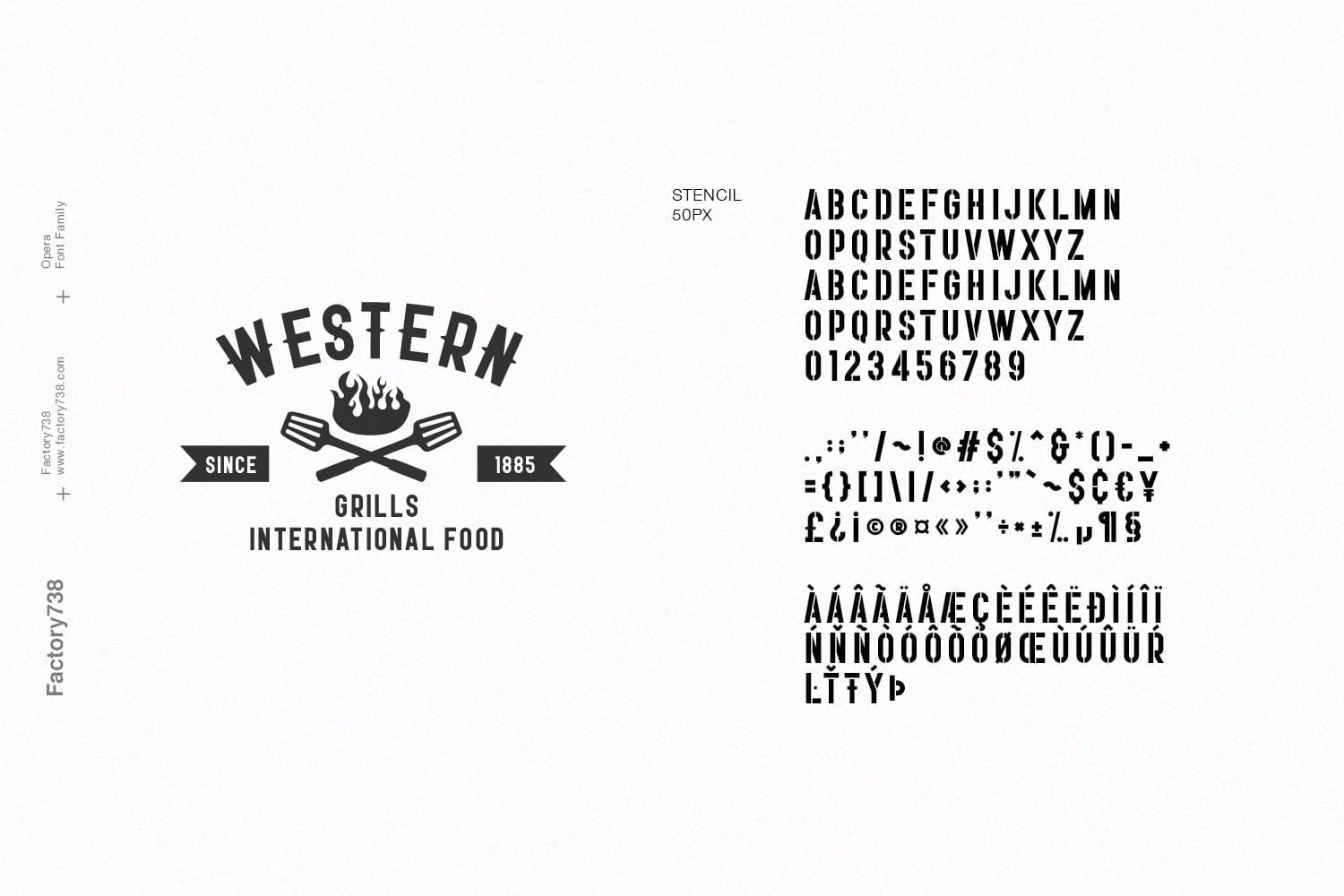
Opera is a bold sans-serif font family specifically designed for almost every type of project. Use your imagination and you’ll make your project more alive than ever before. You want to make a greeting card or a package design? Feel free to play with all font styles, that will lead you to your next successful project.
• 10 Weights
• 2 Styles (Regular and Oblique)
• Basic Latin A-Z and a-z
• Numerals & Punctuation
• Multilingual Support for ä ö ü Ä Ö Ü …
Opera Family Sans